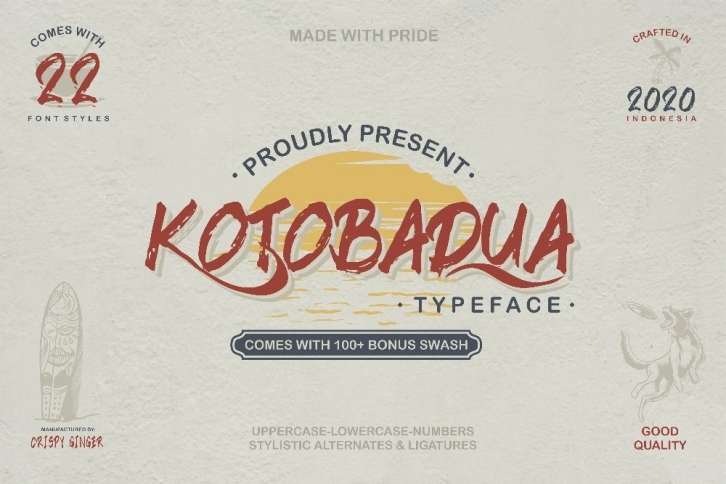
Kotoba Dua - 22 Font styles and 150 Swashes Download
Kotoba Dua - 22 Font styles and 150 Swashes Font Download
Kotoba Dua is a great font that was designed by gblack-id. Imagine the amount of combinations you can create using this font! The archive is 16.21 MB and it was released on June 17, 2020. Kotoba Dua looks beautiful on wedding invitations, greeting cards, logos, posters, labels, t-shirt designs, logos, business cards and is perfect for use in ink or watercolor works, fashion, magazines, packaging and food menus, children's books and more!